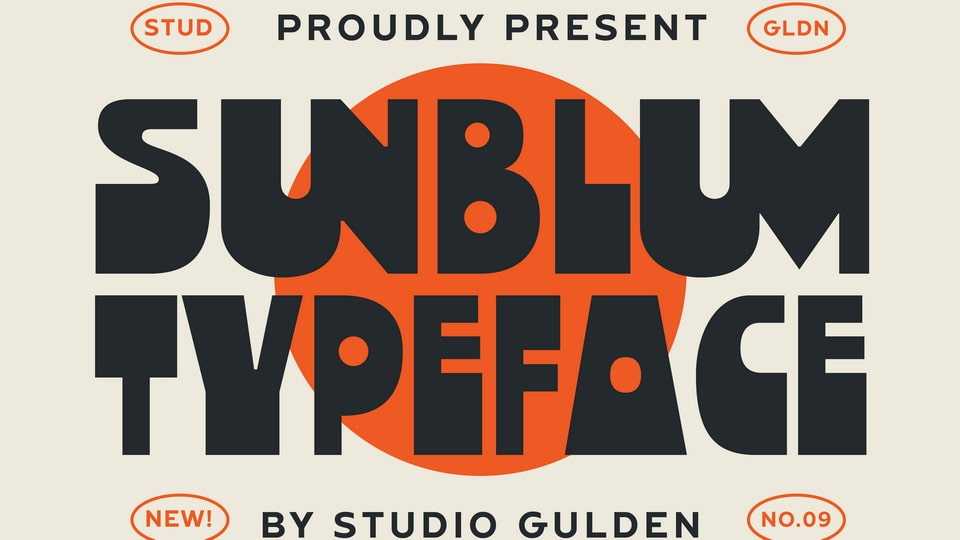
SG Sunblum Font › Fontesk
Download SG Sunbloom font, a modern sans-serif typeface that stands out from the crowd with its extraordinary design elements. SG Sunbloom font features sleek, elongated lines and bold, asymmetrical letterforms that give it a dynamic and eye-catching appearance.
Designer: Studio Gulden